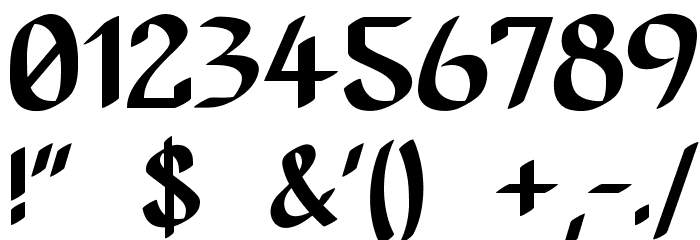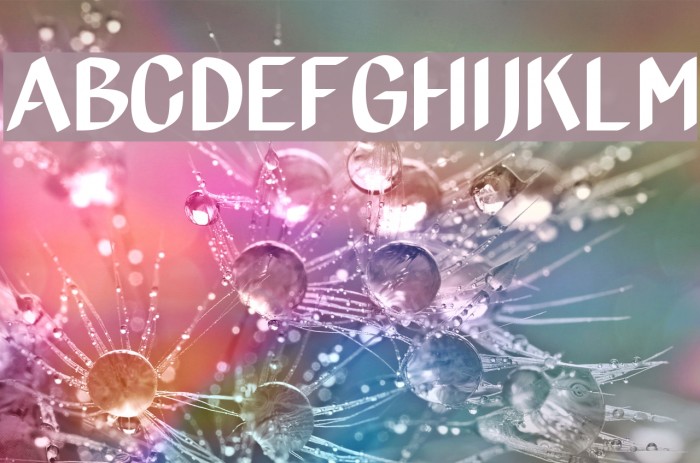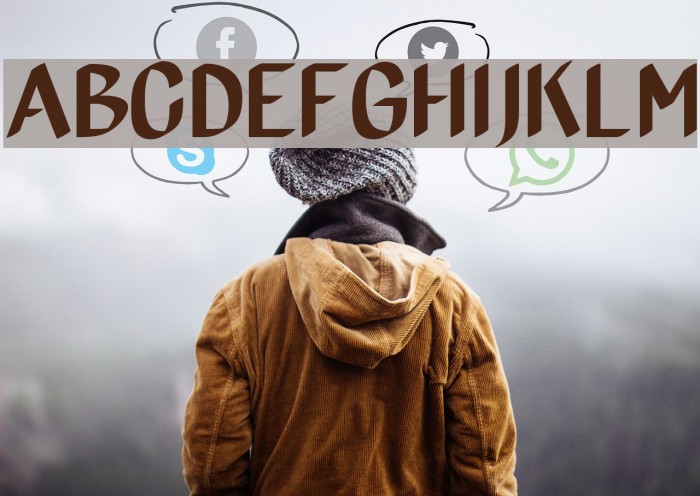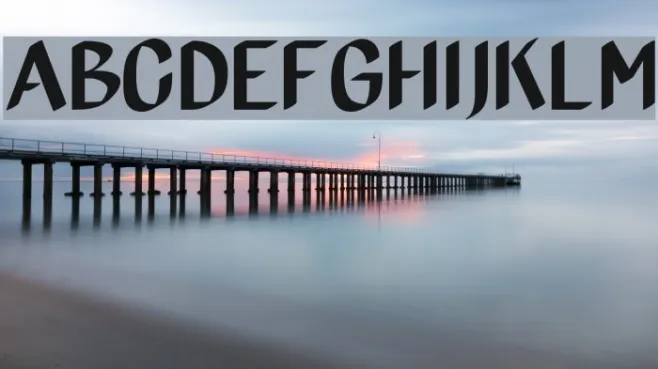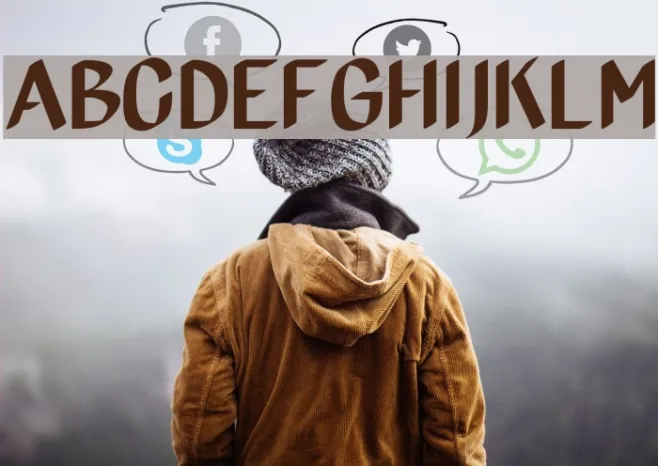
Jeff Font
This font features a bold and dynamic style with sharp, angular lines and a distinct geometric flair. The uppercase letters are characterized by their strong presence and unique slanted cuts, giving them a modern and edgy appearance. The numerals and special characters maintain this boldness, ensuring consistency across all glyphs. The font's design is reminiscent of art deco influences, with a contemporary twist that makes it suitable for eye-catching displays. Its high contrast between thick and thin strokes adds to its striking visual impact.
A bold, geometric font with sharp, angular lines and high contrast.
- Proposed Projects: Ideal for branding, posters, headlines, and any project requiring a modern and bold aesthetic.